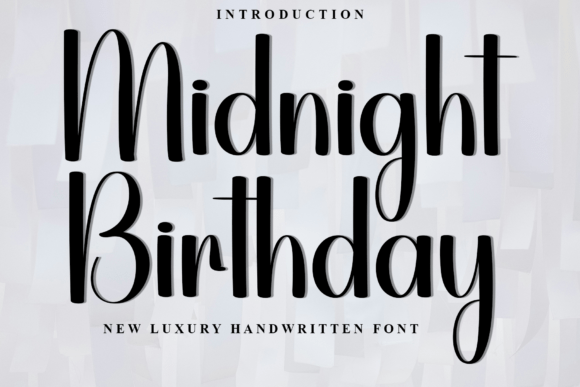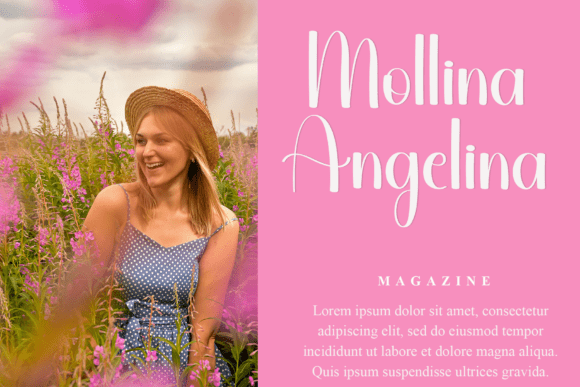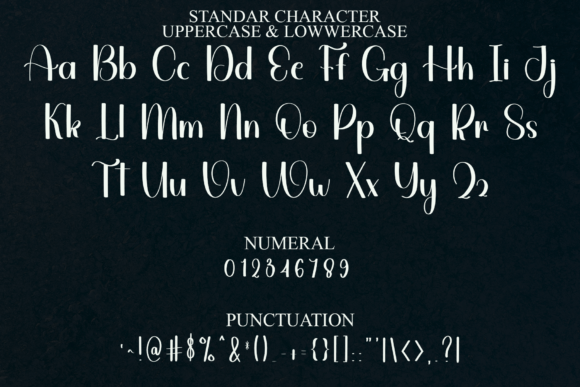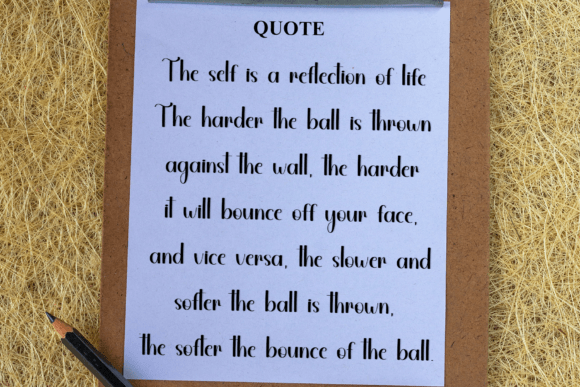
Midnight Birthday Font: Elegant Script for Wedding Design
About the Midnight Birthday Font
Step up your design game with Midnight Birthday Font, a font that exudes confidence and style. Midnight Birthday  is a stylish and incredibly elegant script font. It looks stunning on wedding invitations, thank you cards, quotes, greeting cards, logos, business cards and every other design which needs a handwritten touch.
Its elegant, slightly informal style makes it ideal for branding projects requiring a touch of sophistication, particularly for businesses in fashion, beauty, or the wedding industry. It excels in headlines, short text blocks, and logos, adding a handwritten flair without sacrificing readability. However, avoid using it for large bodies of text or UI elements; its script nature compromises legibility in extended use.
Pairing Midnight Birthday with a clean sans-serif like Open Sans for body copy creates a balanced contrast. For a more luxurious feel, consider pairing it with a classic serif such as Garamond. A geometric sans-serif font could also work well, providing a modern counterpoint to the script’s organic flow.
The overall personality of Midnight Birthday is sophisticated yet approachable; elegant but not overly formal. It conveys a sense of refined style and personality, making it perfect for projects that require a touch of both luxury and warmth.
Midnight Birthday Font Usage Examples
Midnight Birthday Font Example